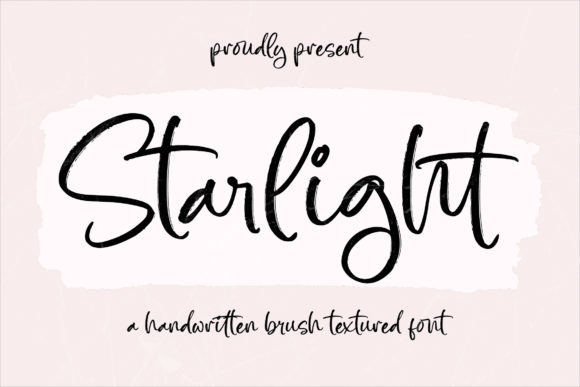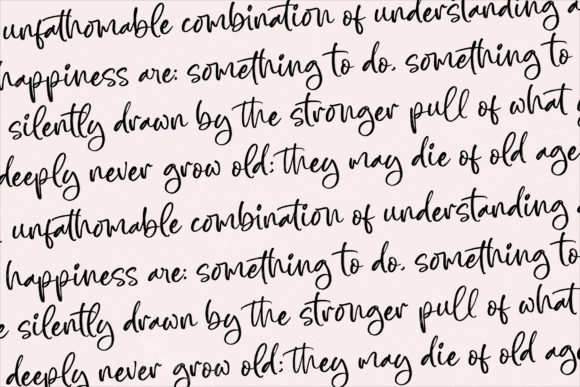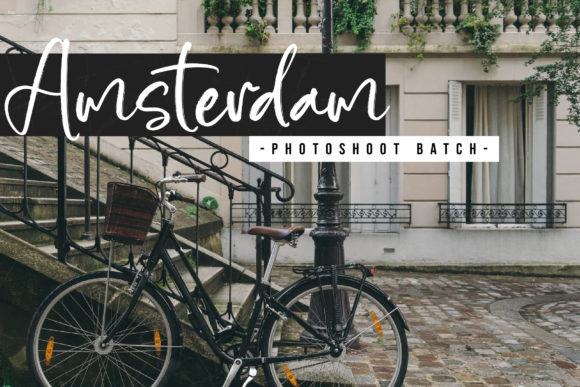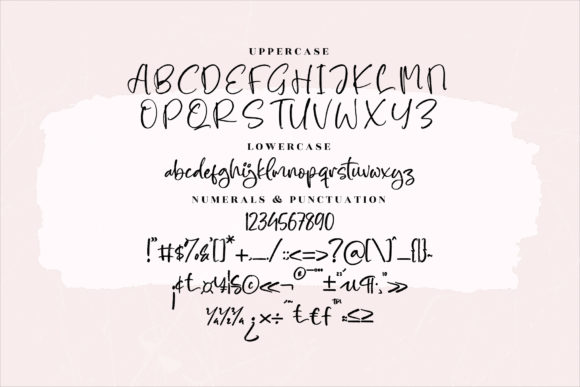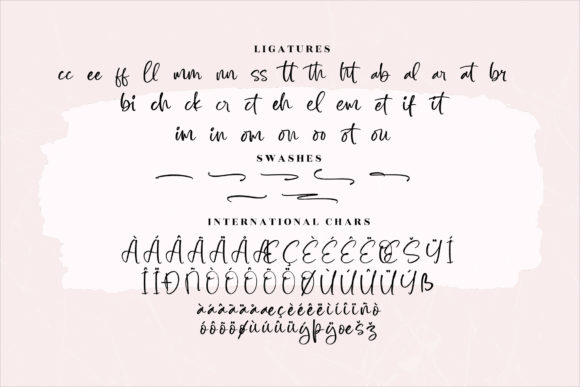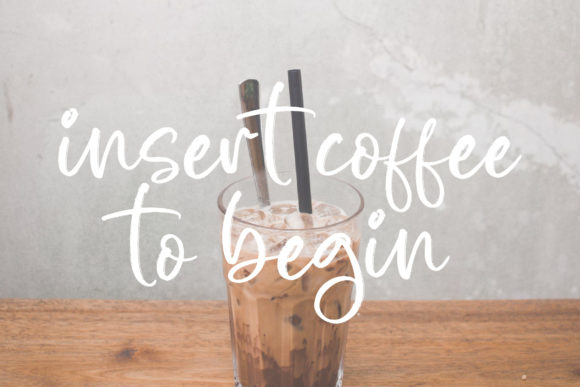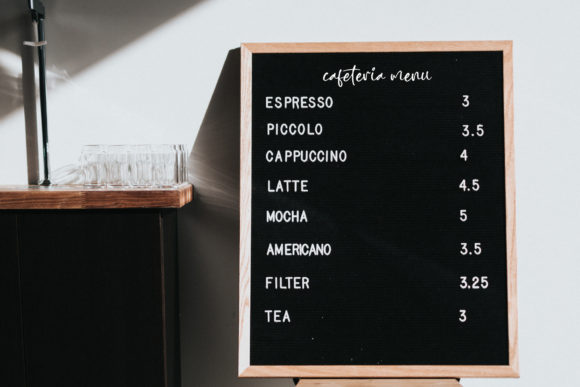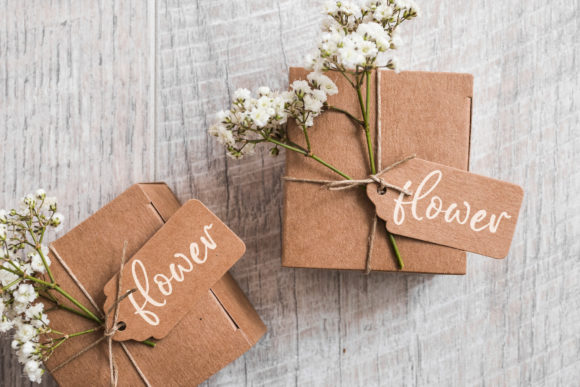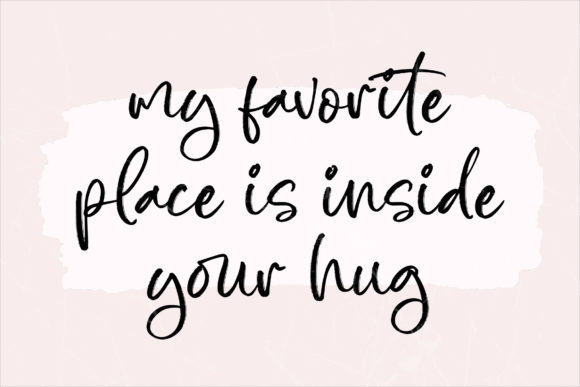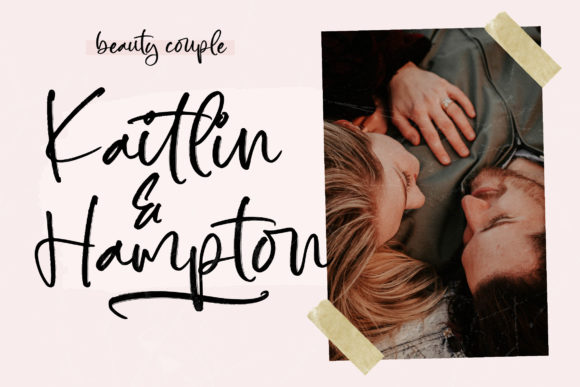
Starlight Font
About Starlight Font
“Starlight” is a superb handwritten font meticulously crafted to make your work stand out with its elegant and curvy lines. Tailored for a diverse range of applications, this font is ideal for product packaging, branding projects, magazine covers, social media graphics, weddings, or any context where you want to express words with a touch of grace against various backgrounds.
The elegant and curvy lines of “Starlight” bring a sense of sophistication to your designs. Envision this font enhancing product packaging, where its script style adds charm and refinement. The curvy lines ensure that “Starlight” stands out with a delightful and graceful aesthetic.
In branding projects, “Starlight” becomes a pivotal element in creating a visual identity that radiates elegance. The font’s versatility allows it to seamlessly adapt to different contexts, enhancing the overall appeal of diverse brands.
For social media graphics or any design that demands a touch of sophistication, “Starlight” adds a superb handwritten flair. Its script style injects an artistic and creative touch, making your content visually engaging and elegant.
As you incorporate “Starlight” into your creative projects, savor its superb handwritten charm. Whether you’re working on print materials or digital media, this font serves as an elegant and versatile choice to ensure your designs stand out with grace and style.